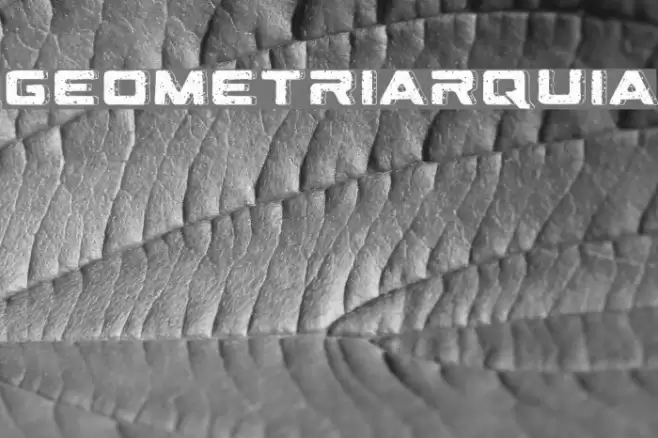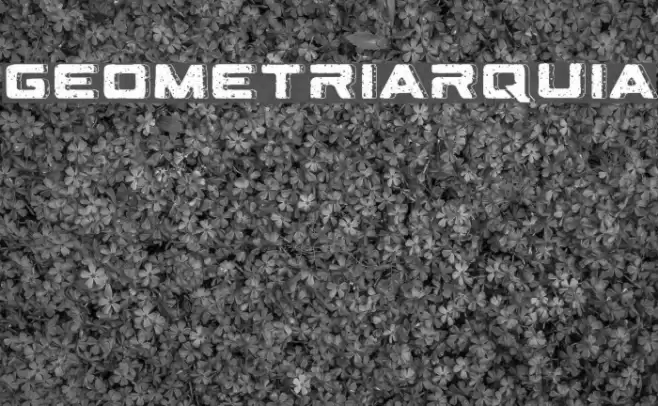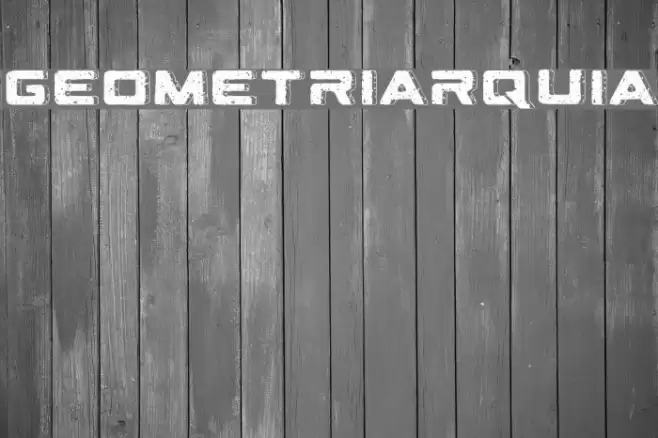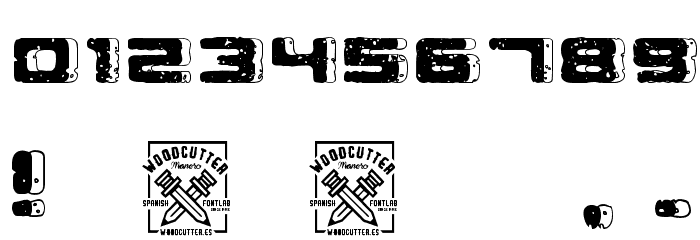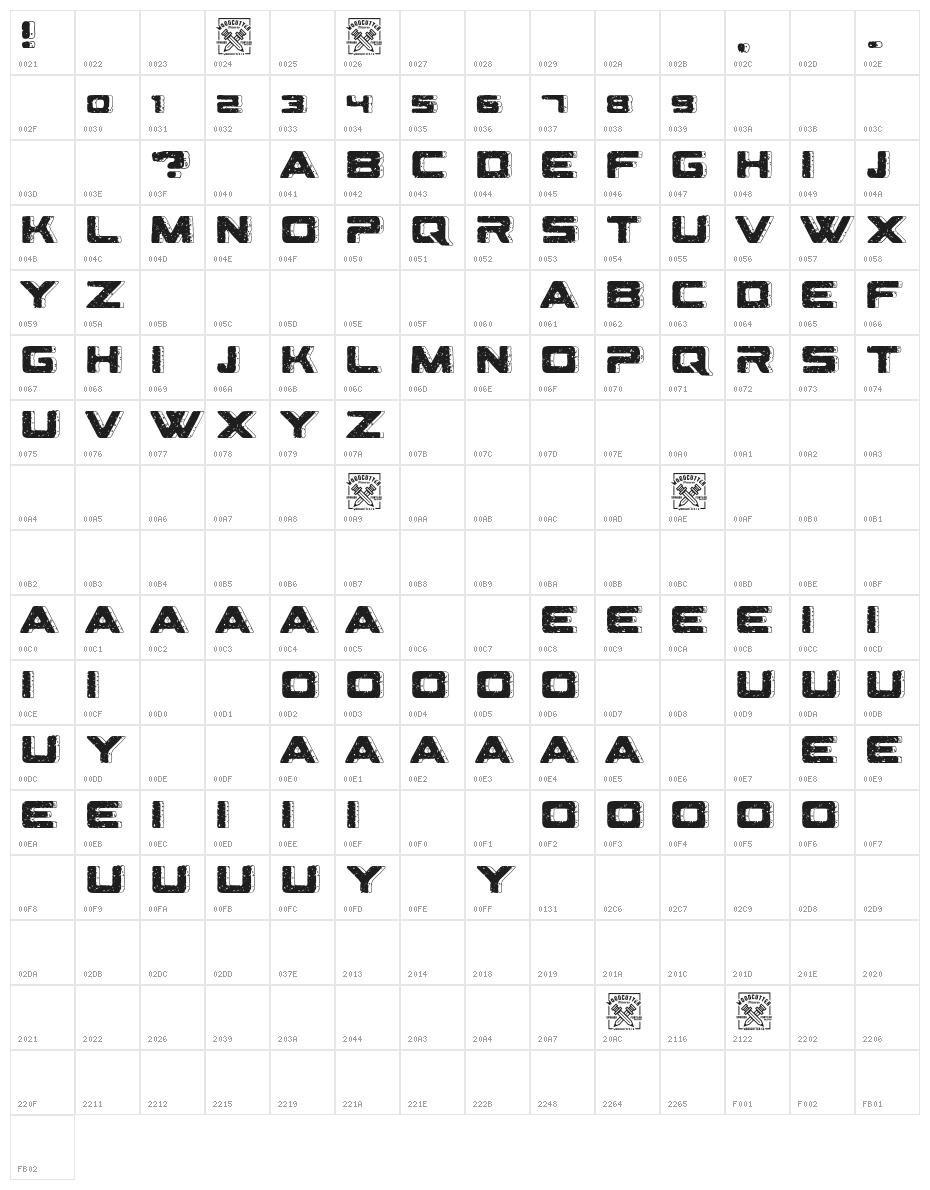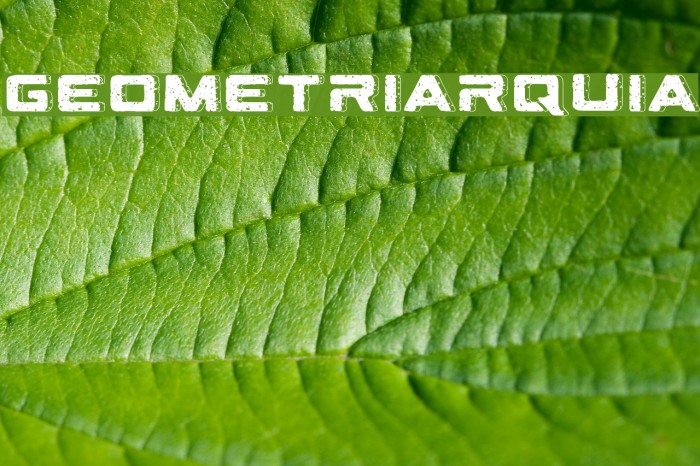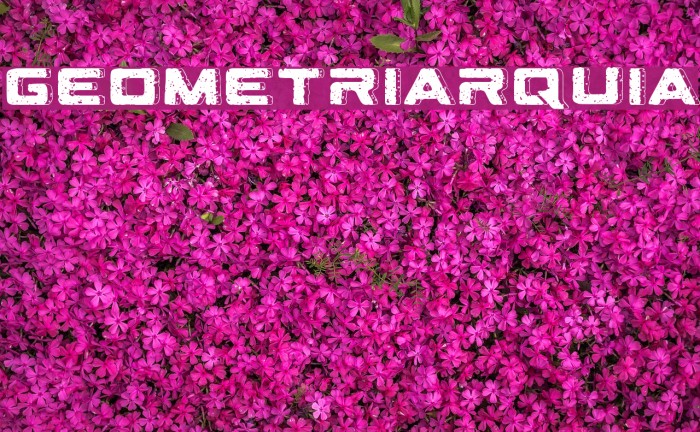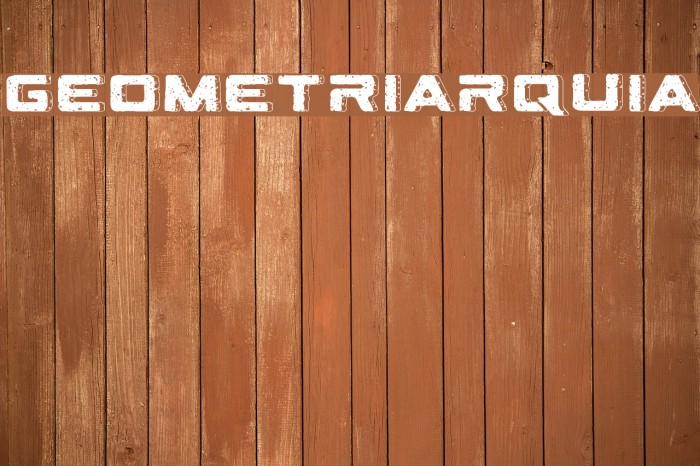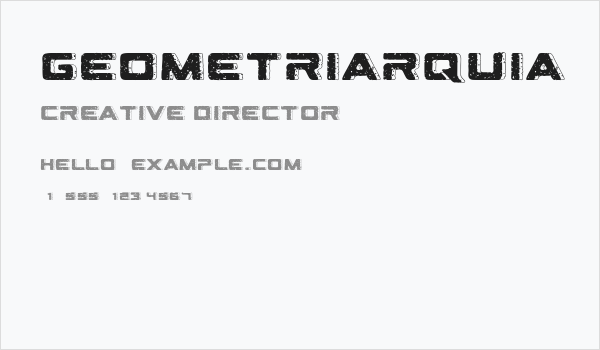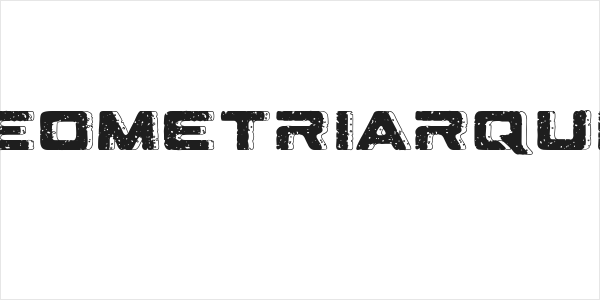
Geometriarquia Font
Geometriarquia Description
This font features a bold, distressed style with a rugged, textured appearance that gives it a vintage and industrial feel. The characters are blocky and geometric, with a consistent thickness throughout, creating a uniform look. The distressed effect adds a sense of age and wear, making it ideal for projects that require a gritty, authentic aesthetic. The uppercase and lowercase letters maintain a similar style, ensuring cohesion across different text elements. Numbers and special characters are included, matching the overall design theme.
A bold, distressed font with a vintage, industrial look from Uncategorized fonts.
- Proposed Projects: Ideal for posters, logos, branding, and any design requiring a rugged, vintage aesthetic.
- Overall Style: Vintage, Industrial